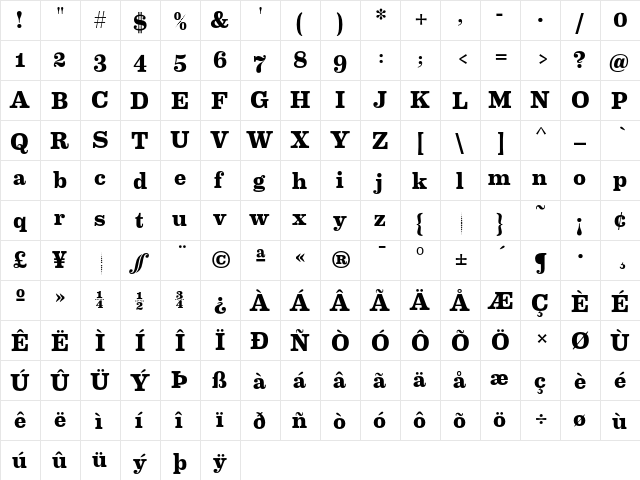
Eames Century Modern Bold Regular
| Foundry | House Industries |
| Designer | Erik van Blokland |
| Year | 2010 |
Design Context for Eames Century Modern Bold Typeface
Eames Century Modern Bold takes a measured approach to typography — its balanced proportions and neutral character make it a reliable workhorse for both digital and print work. Its bold stroke weight gives it real presence on the page.
Pro Tip: Use Eames Century Modern Bold in both headline and body roles to test its range before committing to a single application.